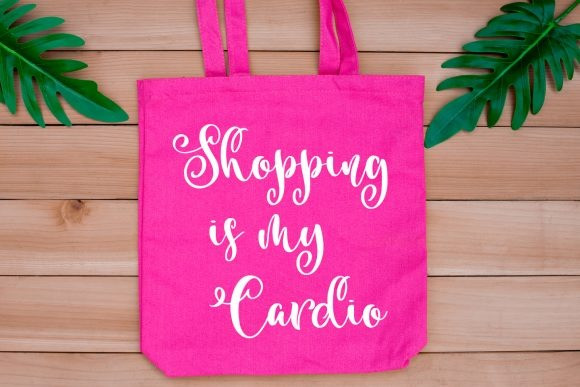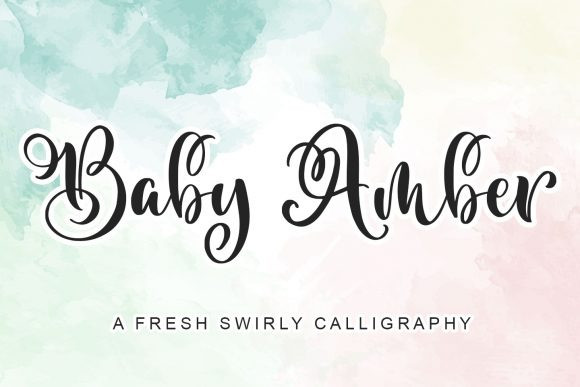
Baby Amber Font
Baby Amber Script Font is a whimsical script font with a relaxed theme, featuring a lovely style. No matter the topic, this font will be an incredibly asset to your fonts’ library, as it has the potential to elevate any creation.